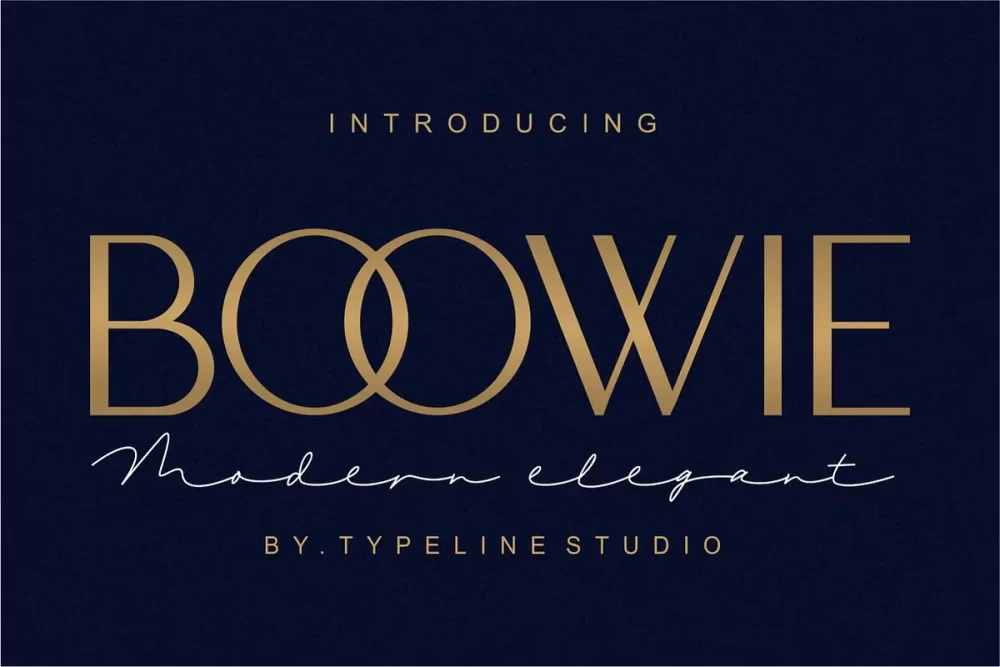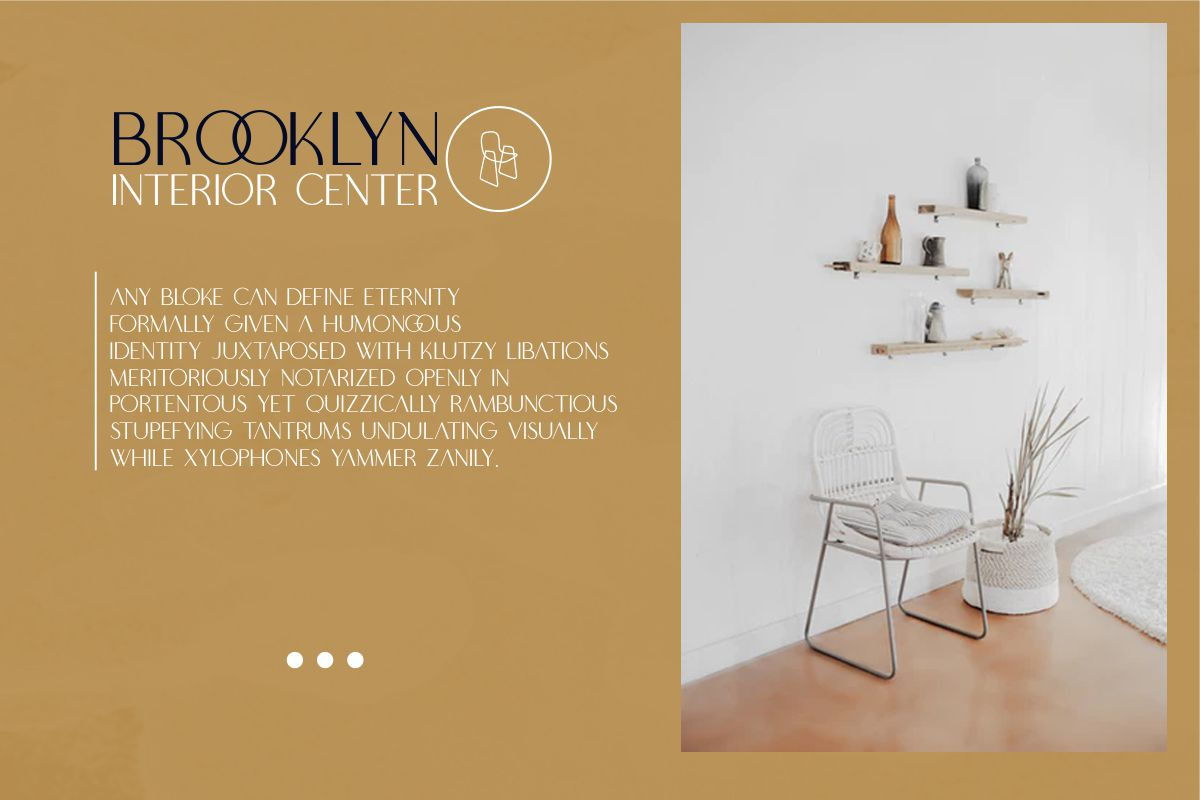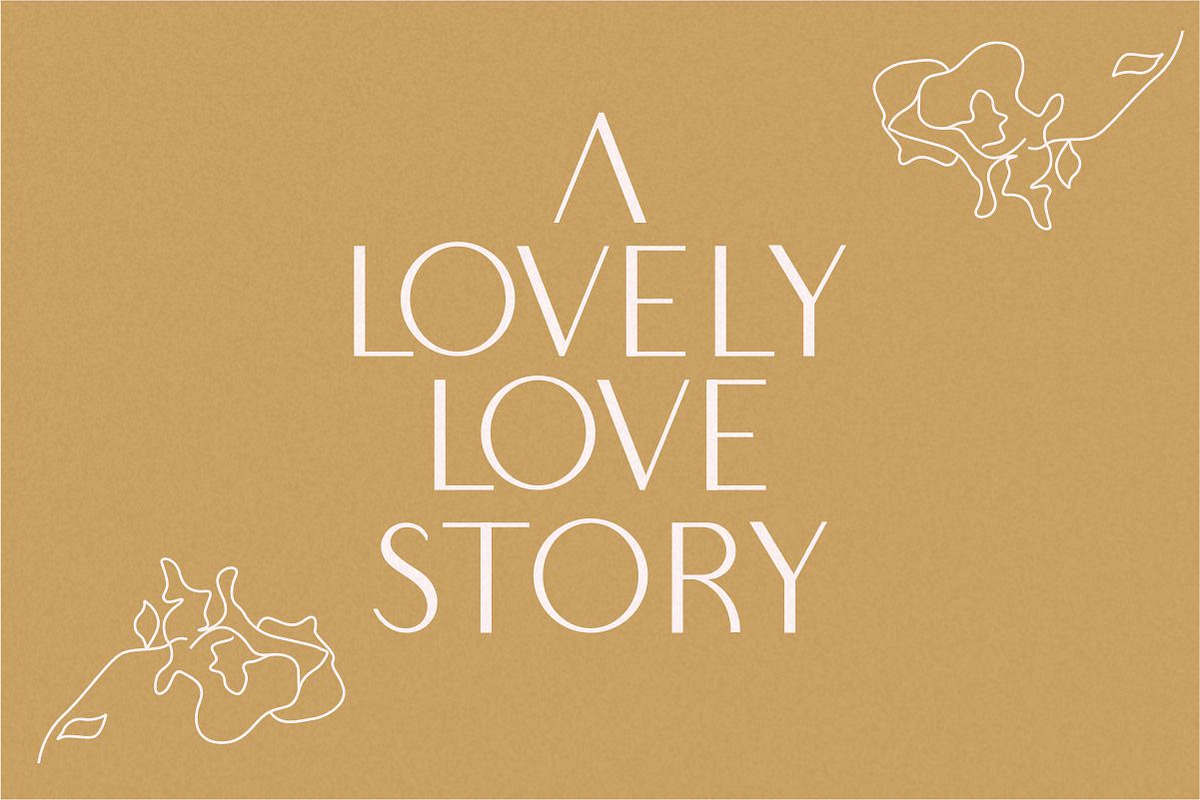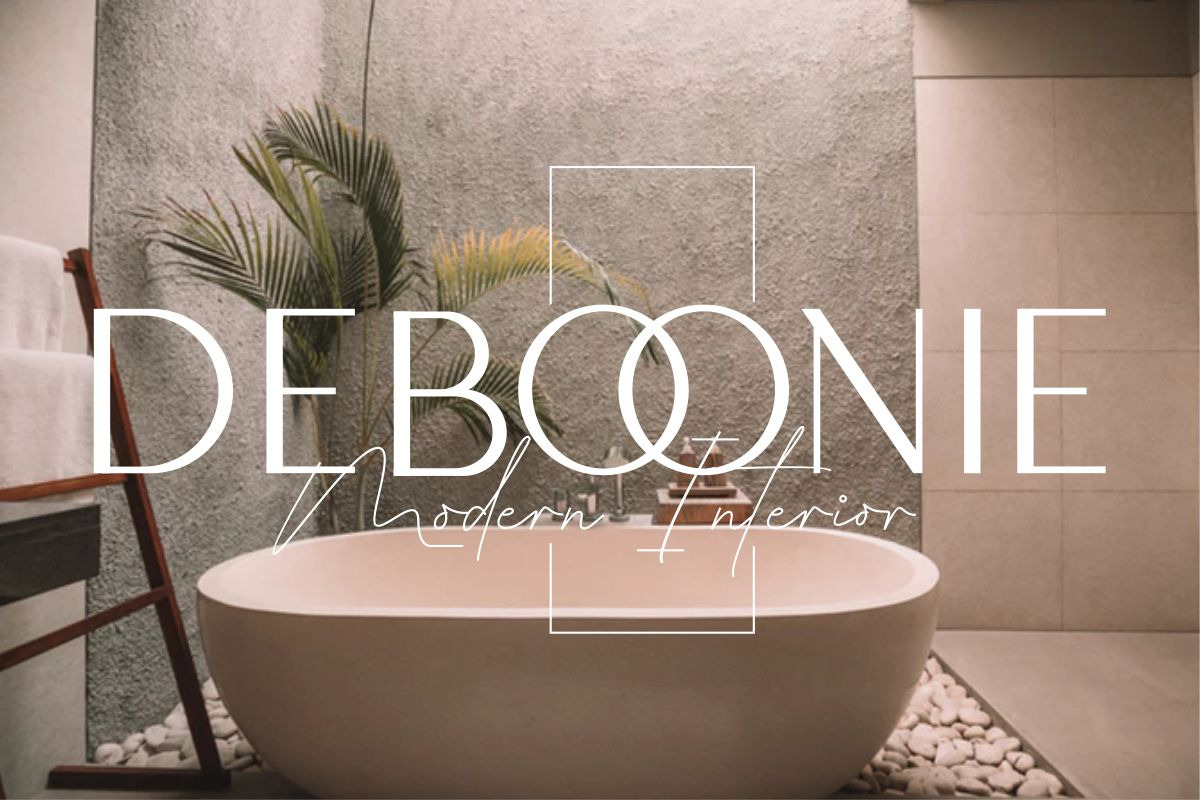
Boowie Font
Boowie is a minimalist sans-serif font with regular and italic versions. Boowie is the perfect use for logos, print, collages, body text, and more! It looks minimalist a cool modern-meets-vintage look to any piece.
• Uppercase letters
• Numbers + punctuation
• multilingual support